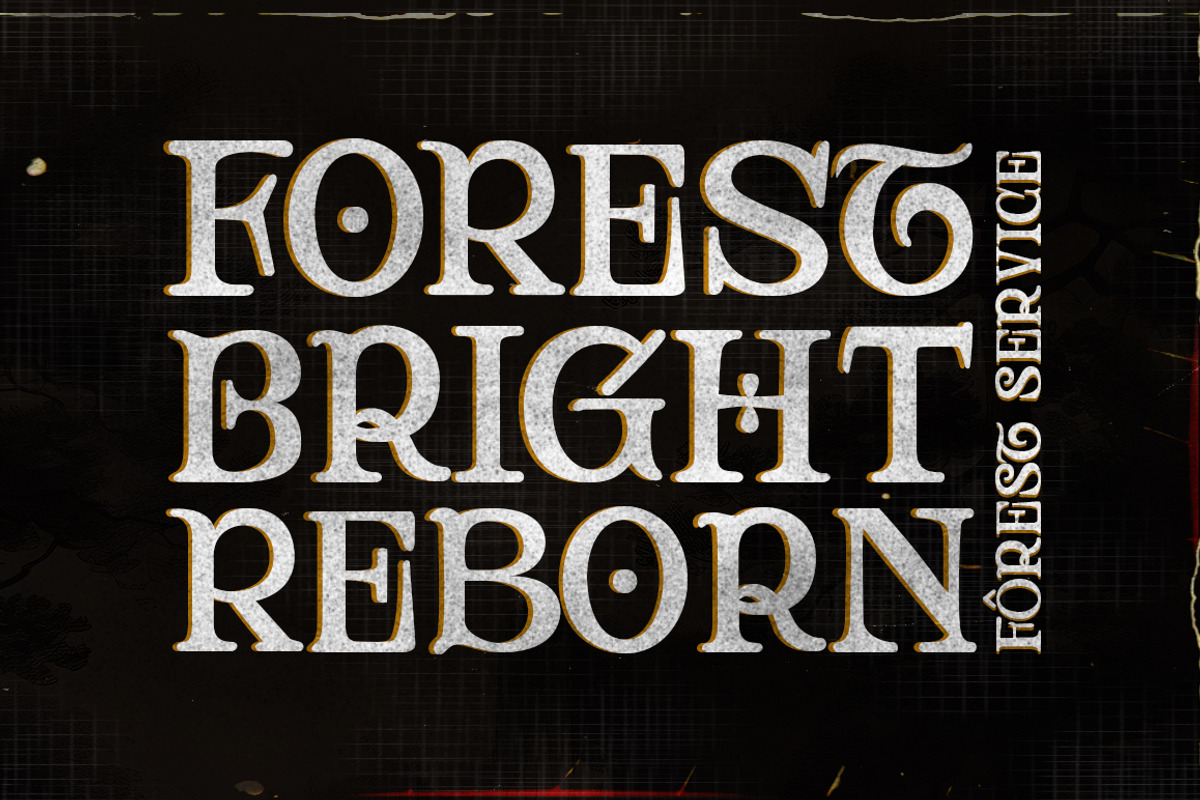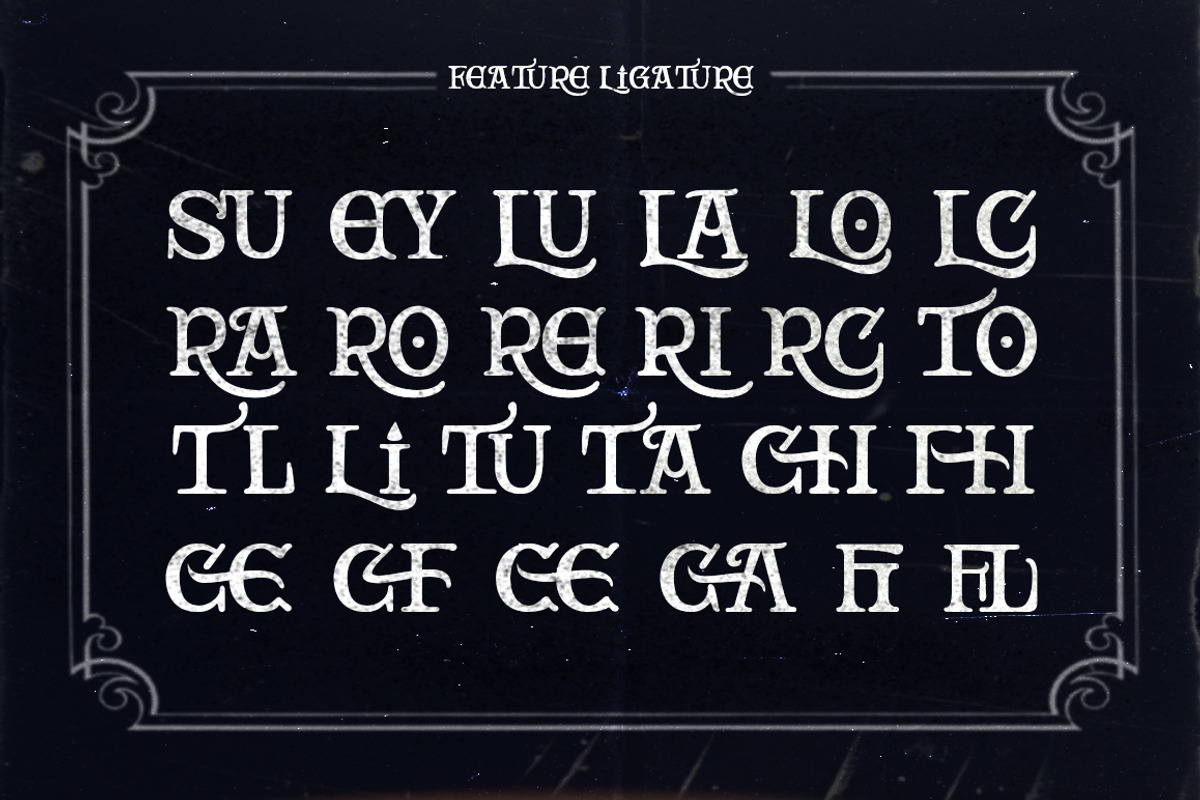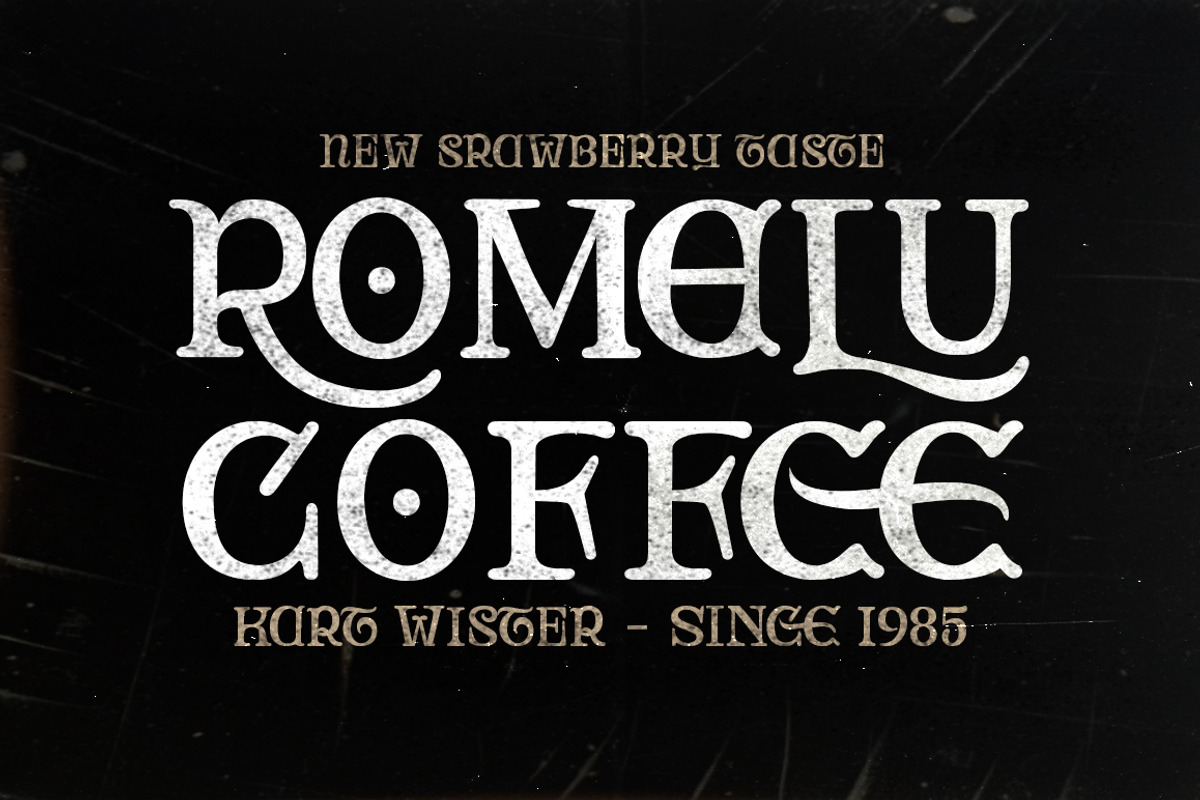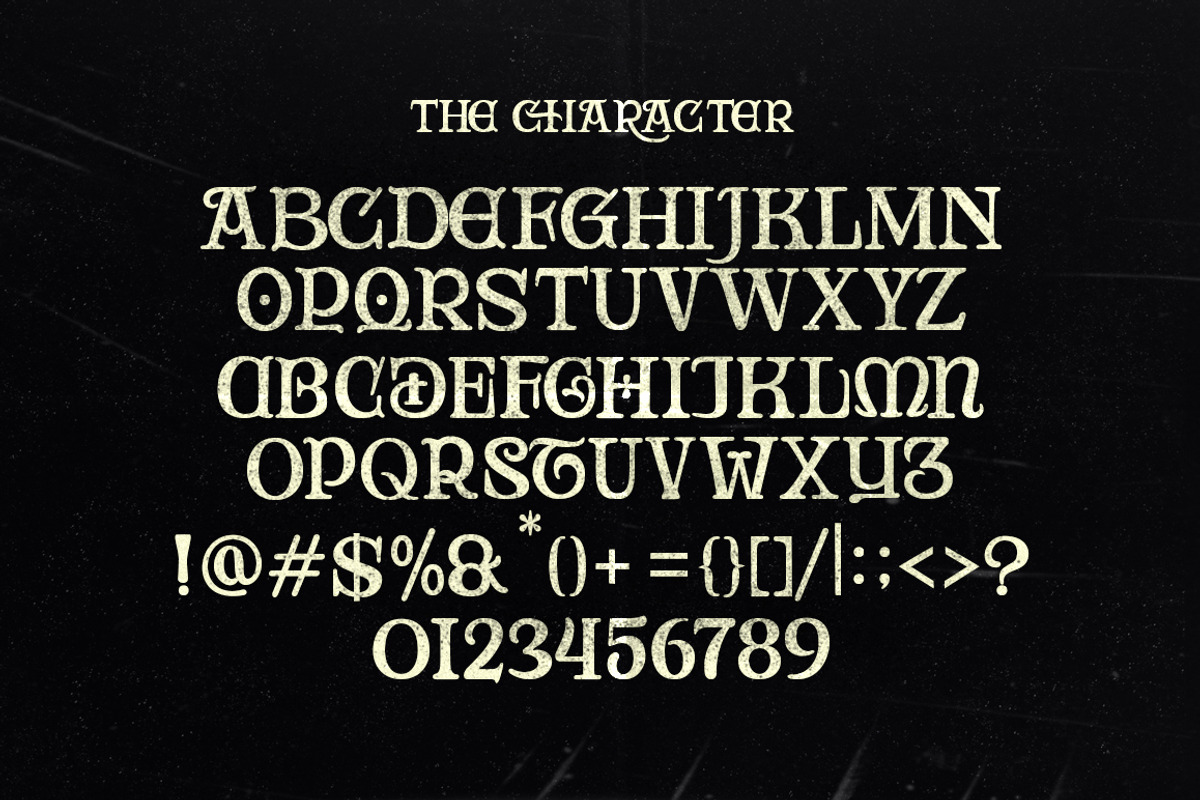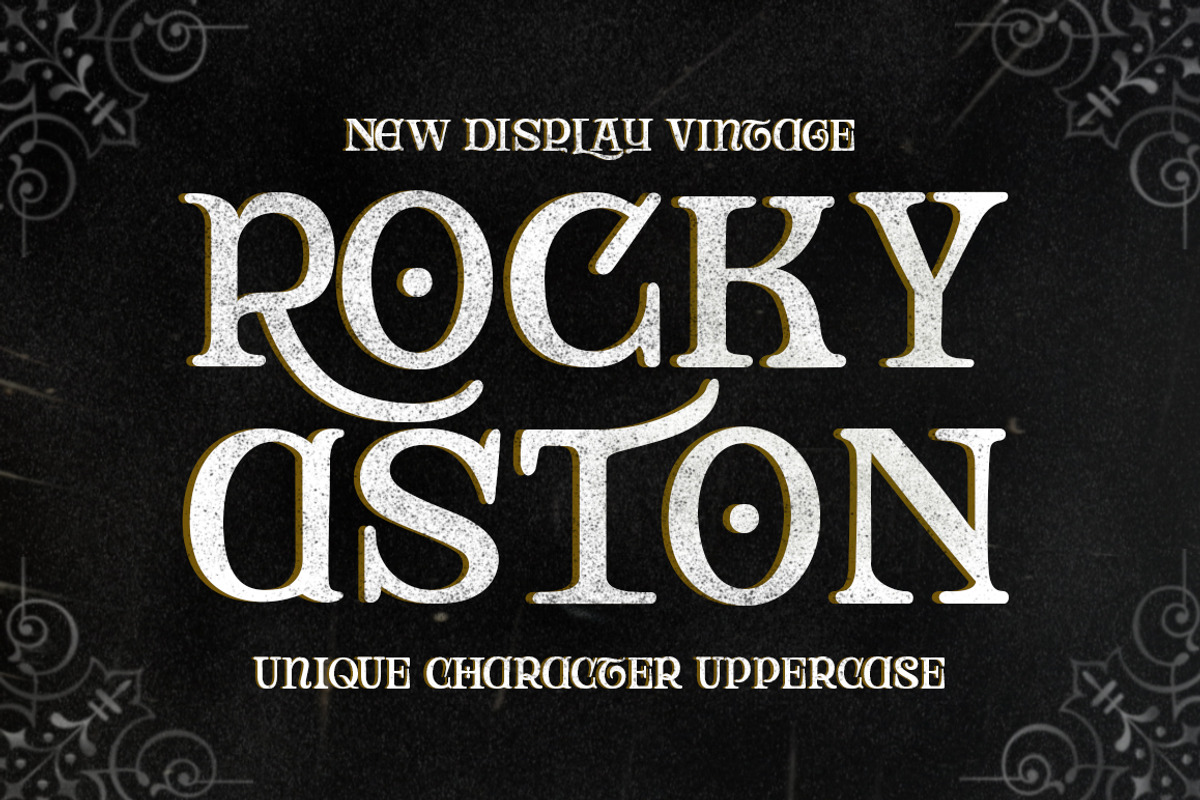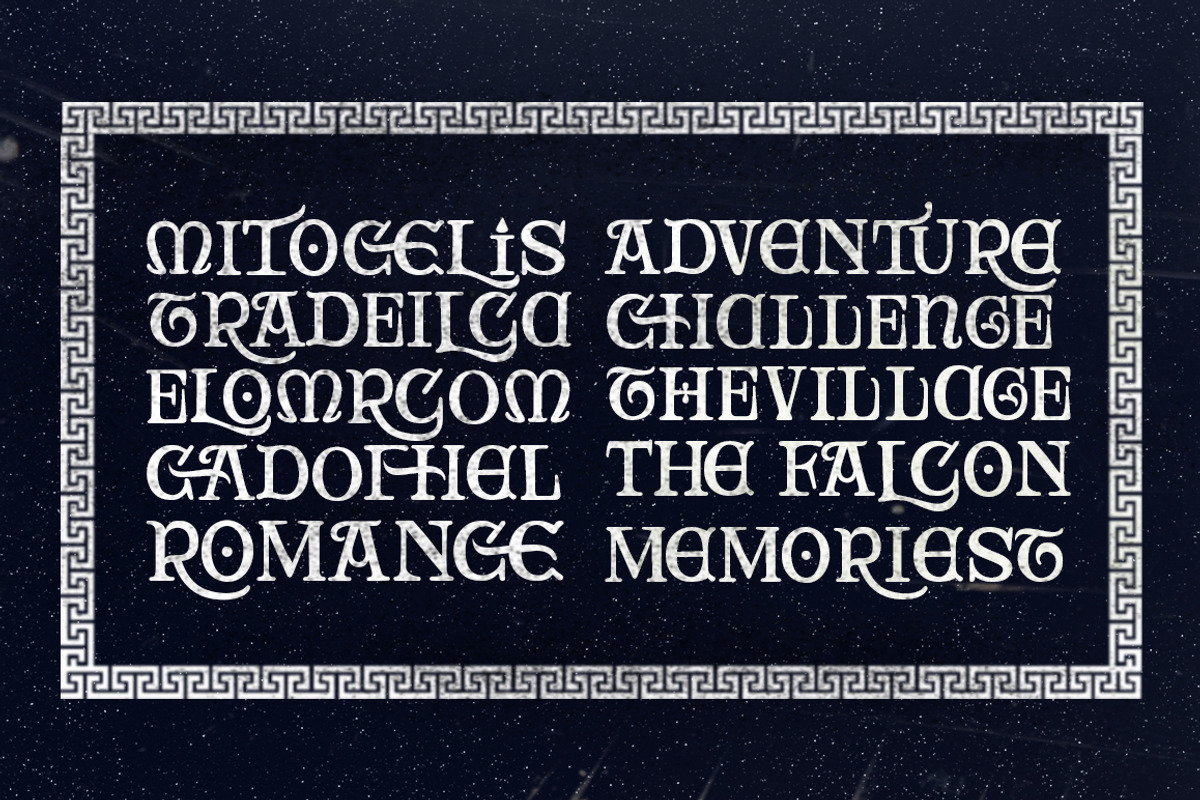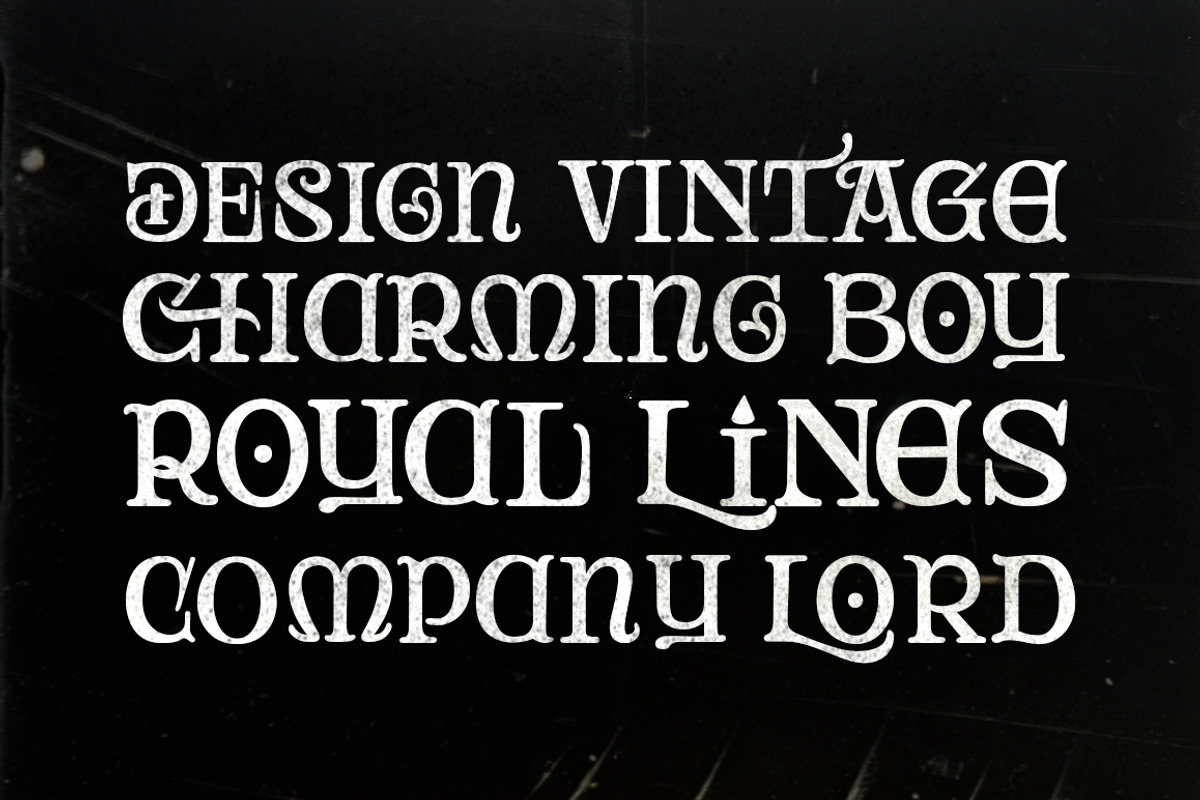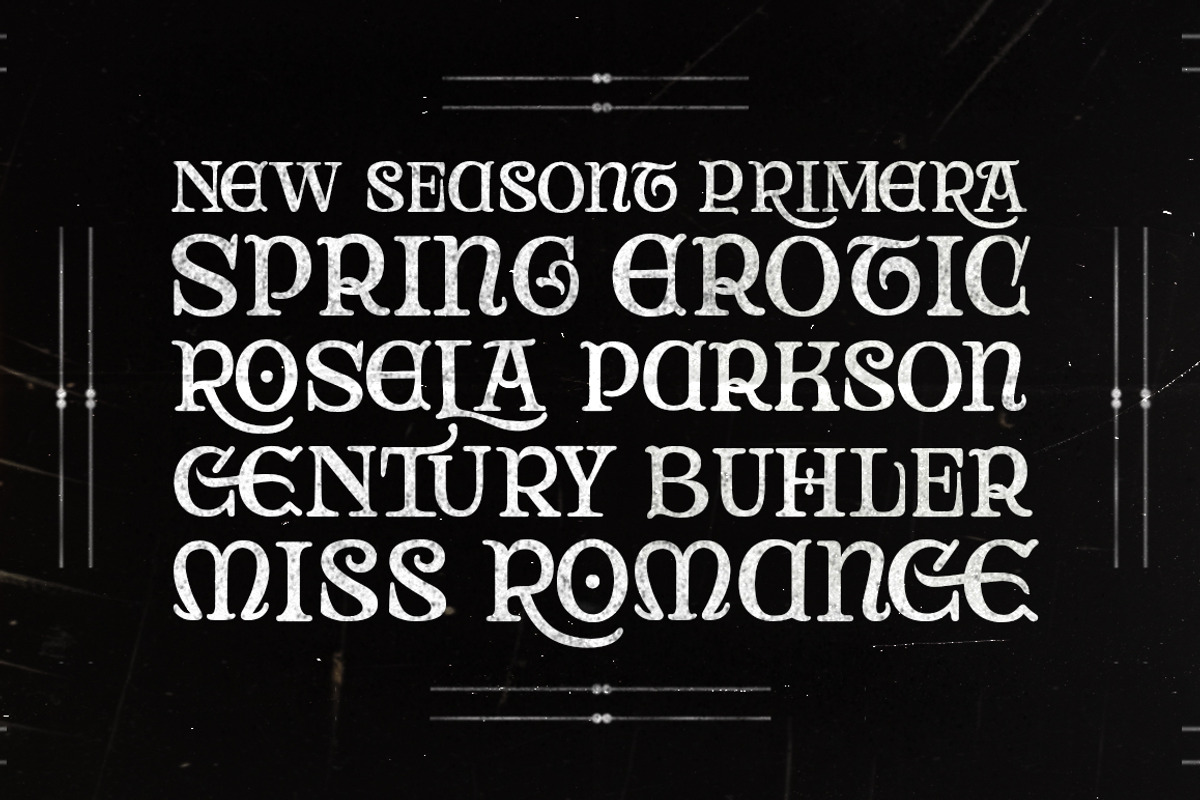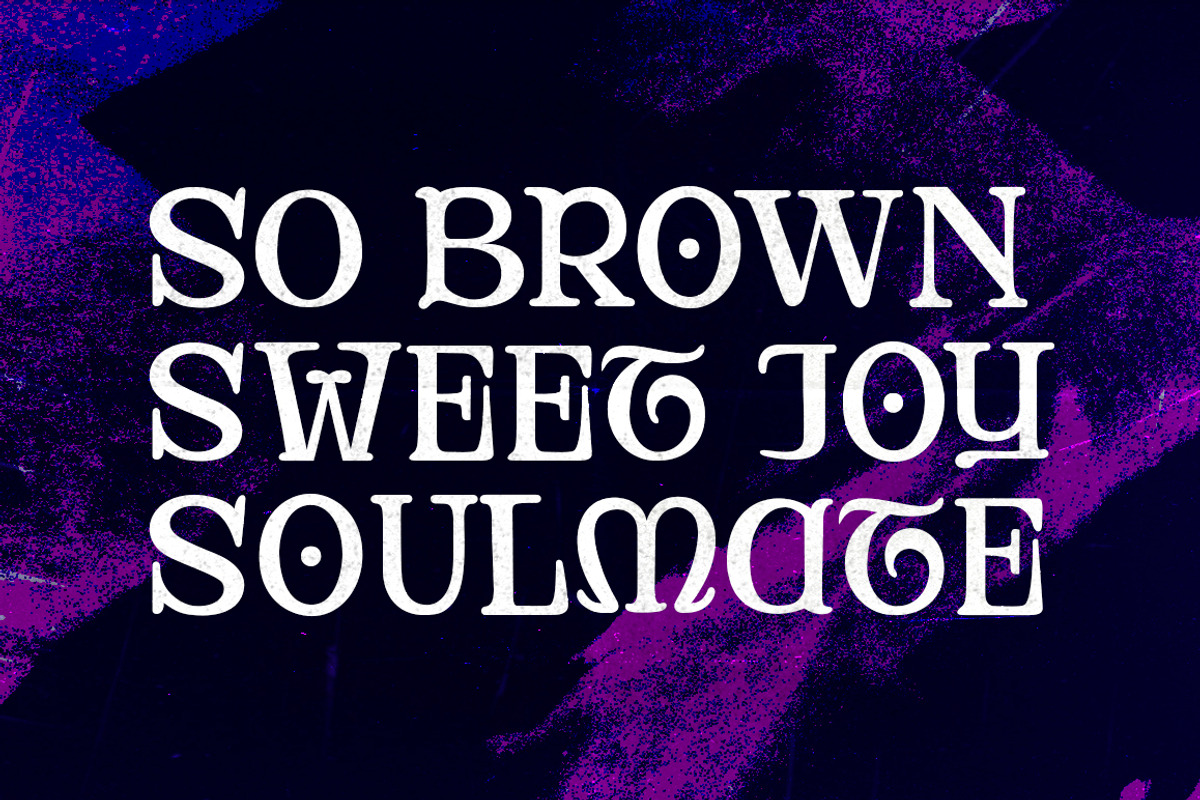
Rocky Aston
Rocky Aston is a vintage typeface, appearing in a clean and letterpress style, organized and original with additional ligatures and symbols. Rocky Aston is great for all kinds of display purposes from branding, emblems, advertising, t-shirts, etc, you name it.